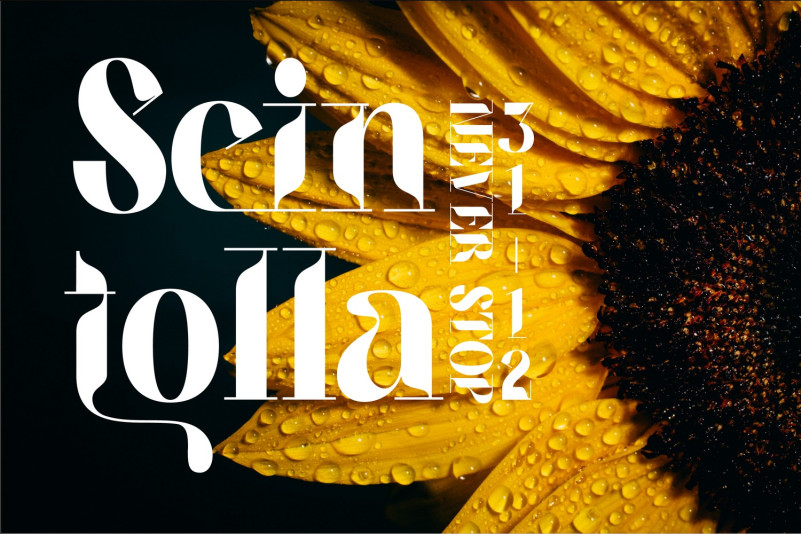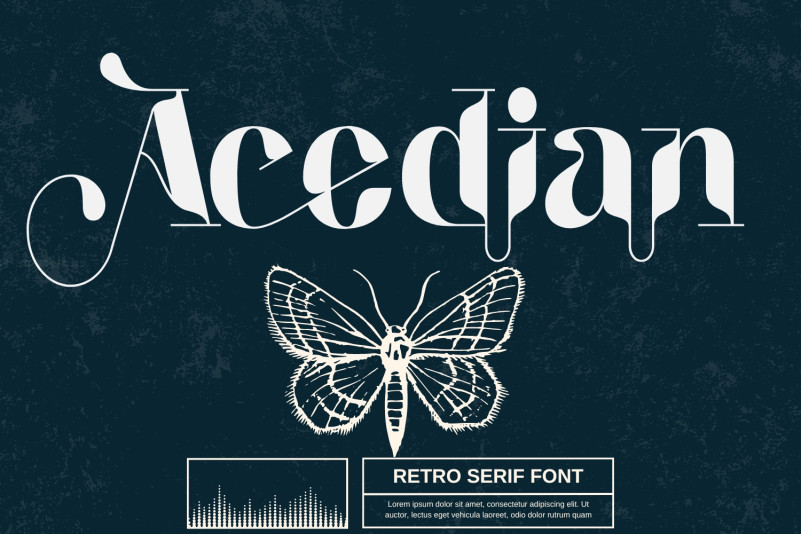
Acedian Font
Acedian Serif Font is a modern retro serif font that features unique alternate and ligature characters. Its stylish design is perfect for creating a classic and contemporary feel in your projects. This font with alternate and ligature, canva font, procreate font, cricut font, logo font, branding font, elegant font, luxury font, invitation font, project font.
To make it look more unique, here we prepared some ligatures:
ab af ah ai ak am an ar cf ce ch ci ck cm cn cr ct db df dh di dk dm dn dr ef ee eh ei ek em en er et fj fm fn fr ft ok oh ob ot nb nf nh ni nk nm nn nr mb mf mh mi mk mm mn ky jb jh jk ib ih ik hb hf hh hi hk hm hn hr gm gn gr gt gu gi qm qn qr rt te to tc ub uf ui uk um un ur fi fl